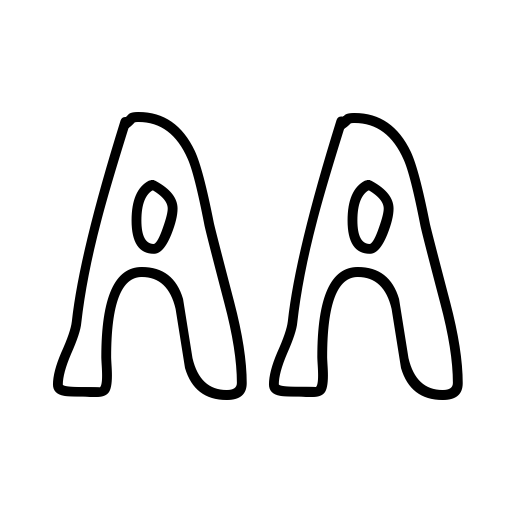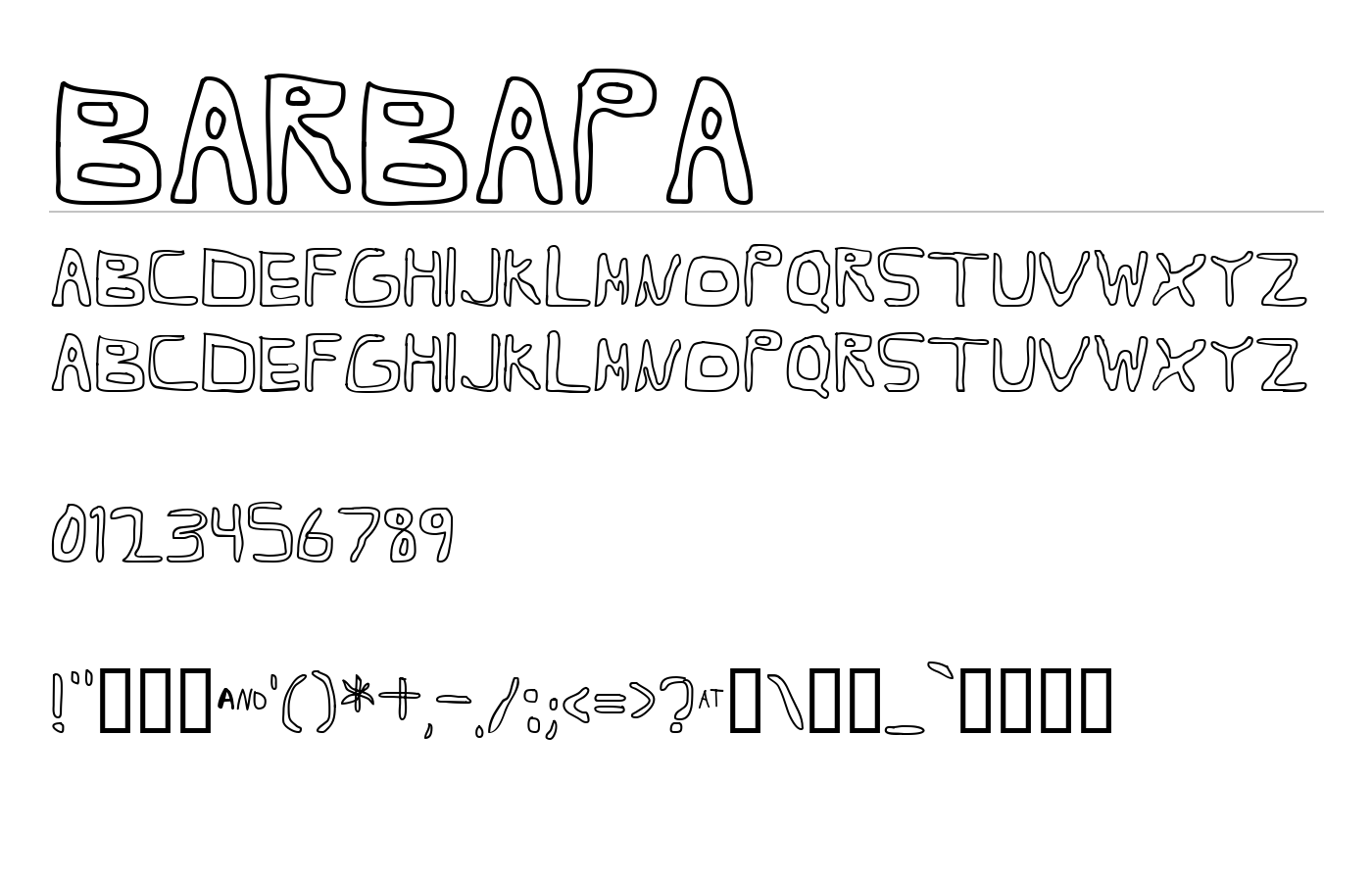
Barbapa is a playful and quirky sans serif typeface with a hand-drawn, irregular style that gives it a fun and approachable personality. Its uneven lines and rounded shapes create a casual, almost cartoon-like feel, making it perfect for creative projects, informal branding, and children’s materials where a lively and friendly tone is desired. This font works well in headlines, posters, and packaging that aim to capture attention with a unique and whimsical look.
Barbapa Font